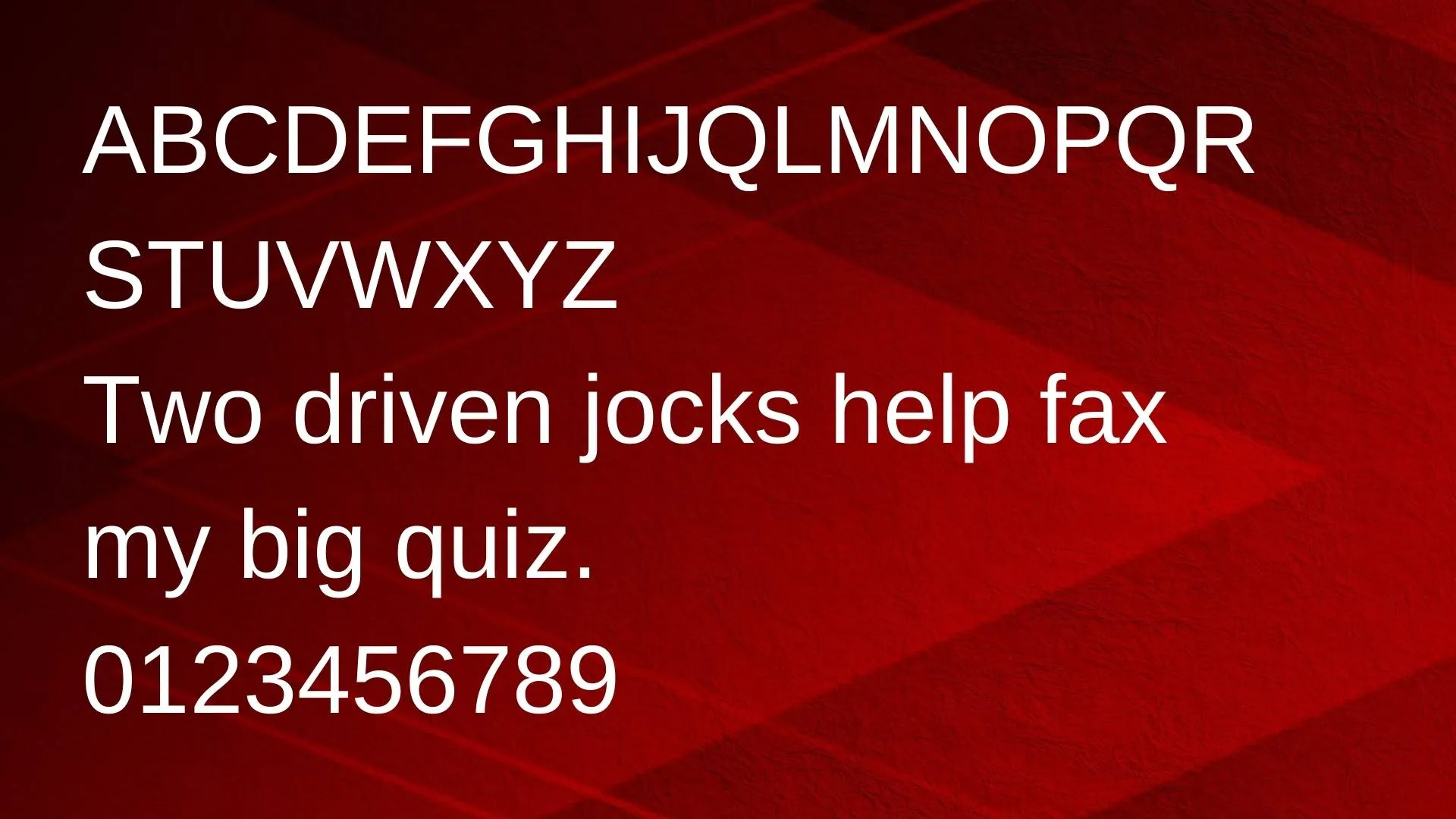
Is Arimo A Good Font . Arimo is an excellent choice for body text when paired with montserrat as the heading font, creating a harmonious and accessible. Montserrat bold and roboto slab. It’s strong enough for headlines. Arimo offers a crisp, modern look with characteristics similar to arial but with wider letter spacing and cleaner lines. You're free to use it with your adobe fonts account just as you would any other font in the. Sans serif fonts offer optimal readability for both large and fine print, with clean and modern. Arimo is available via an open source license. Arimo was designed by steve matteson as an innovative, refreshing sans serif design that is metrically compatible with arial™. It was designed by steve matteson as an innovative,. Why it is best arial alternative: Arimo performs well in various contexts, demonstrating good readability in long text passages, captions, and digital displays. Arimo is a truetype font family that looks surprisingly good in all sizes. For a cool vibe and a modern sensibility, consider using arimo, a sans serif font that is a good all around choice.
It’s strong enough for headlines. Sans serif fonts offer optimal readability for both large and fine print, with clean and modern. Arimo performs well in various contexts, demonstrating good readability in long text passages, captions, and digital displays. Arimo is available via an open source license. Arimo was designed by steve matteson as an innovative, refreshing sans serif design that is metrically compatible with arial™. For a cool vibe and a modern sensibility, consider using arimo, a sans serif font that is a good all around choice. Why it is best arial alternative: Arimo offers a crisp, modern look with characteristics similar to arial but with wider letter spacing and cleaner lines. Montserrat bold and roboto slab. Arimo is an excellent choice for body text when paired with montserrat as the heading font, creating a harmonious and accessible.
Is Arimo A Good Font For a cool vibe and a modern sensibility, consider using arimo, a sans serif font that is a good all around choice. It was designed by steve matteson as an innovative,. Arimo is available via an open source license. Arimo offers a crisp, modern look with characteristics similar to arial but with wider letter spacing and cleaner lines. Arimo is a truetype font family that looks surprisingly good in all sizes. Montserrat bold and roboto slab. Arimo performs well in various contexts, demonstrating good readability in long text passages, captions, and digital displays. Why it is best arial alternative: You're free to use it with your adobe fonts account just as you would any other font in the. Arimo was designed by steve matteson as an innovative, refreshing sans serif design that is metrically compatible with arial™. Arimo is an excellent choice for body text when paired with montserrat as the heading font, creating a harmonious and accessible. It’s strong enough for headlines. Sans serif fonts offer optimal readability for both large and fine print, with clean and modern. For a cool vibe and a modern sensibility, consider using arimo, a sans serif font that is a good all around choice.
Arimo Font Free Download Is Arimo A Good Font Arimo performs well in various contexts, demonstrating good readability in long text passages, captions, and digital displays. It was designed by steve matteson as an innovative,. You're free to use it with your adobe fonts account just as you would any other font in the. Why it is best arial alternative: It’s strong enough for headlines. Arimo is available via. Is Arimo A Good Font.
Arimo Bold Italic font Is Arimo A Good Font Why it is best arial alternative: Arimo is a truetype font family that looks surprisingly good in all sizes. Arimo was designed by steve matteson as an innovative, refreshing sans serif design that is metrically compatible with arial™. Montserrat bold and roboto slab. It’s strong enough for headlines. You're free to use it with your adobe fonts account just as. Is Arimo A Good Font.
Arimo Font Free Download Is Arimo A Good Font Arimo offers a crisp, modern look with characteristics similar to arial but with wider letter spacing and cleaner lines. Sans serif fonts offer optimal readability for both large and fine print, with clean and modern. For a cool vibe and a modern sensibility, consider using arimo, a sans serif font that is a good all around choice. Why it is. Is Arimo A Good Font.
Arimo Bold Italic font Free fonts on Creazilla Is Arimo A Good Font Arimo is an excellent choice for body text when paired with montserrat as the heading font, creating a harmonious and accessible. Arimo is a truetype font family that looks surprisingly good in all sizes. It was designed by steve matteson as an innovative,. Arimo performs well in various contexts, demonstrating good readability in long text passages, captions, and digital displays.. Is Arimo A Good Font.
Download free Arimo Bold font ArimoBold.ttf Is Arimo A Good Font Arimo is available via an open source license. Sans serif fonts offer optimal readability for both large and fine print, with clean and modern. Arimo performs well in various contexts, demonstrating good readability in long text passages, captions, and digital displays. Arimo is a truetype font family that looks surprisingly good in all sizes. It was designed by steve matteson. Is Arimo A Good Font.
Arimo Font Free Download Is Arimo A Good Font Arimo offers a crisp, modern look with characteristics similar to arial but with wider letter spacing and cleaner lines. You're free to use it with your adobe fonts account just as you would any other font in the. Sans serif fonts offer optimal readability for both large and fine print, with clean and modern. Montserrat bold and roboto slab. It. Is Arimo A Good Font.
Arimo Font Family · 1001 Fonts Is Arimo A Good Font Arimo offers a crisp, modern look with characteristics similar to arial but with wider letter spacing and cleaner lines. Arimo was designed by steve matteson as an innovative, refreshing sans serif design that is metrically compatible with arial™. It was designed by steve matteson as an innovative,. Montserrat bold and roboto slab. You're free to use it with your adobe. Is Arimo A Good Font.
Download free Arimo Italic font ArimoItalicLatin.ttf Is Arimo A Good Font Arimo is available via an open source license. Arimo offers a crisp, modern look with characteristics similar to arial but with wider letter spacing and cleaner lines. Montserrat bold and roboto slab. You're free to use it with your adobe fonts account just as you would any other font in the. Arimo performs well in various contexts, demonstrating good readability. Is Arimo A Good Font.
Download Arimo Bold Font Free Font Download Is Arimo A Good Font Arimo offers a crisp, modern look with characteristics similar to arial but with wider letter spacing and cleaner lines. Arimo is an excellent choice for body text when paired with montserrat as the heading font, creating a harmonious and accessible. It’s strong enough for headlines. You're free to use it with your adobe fonts account just as you would any. Is Arimo A Good Font.